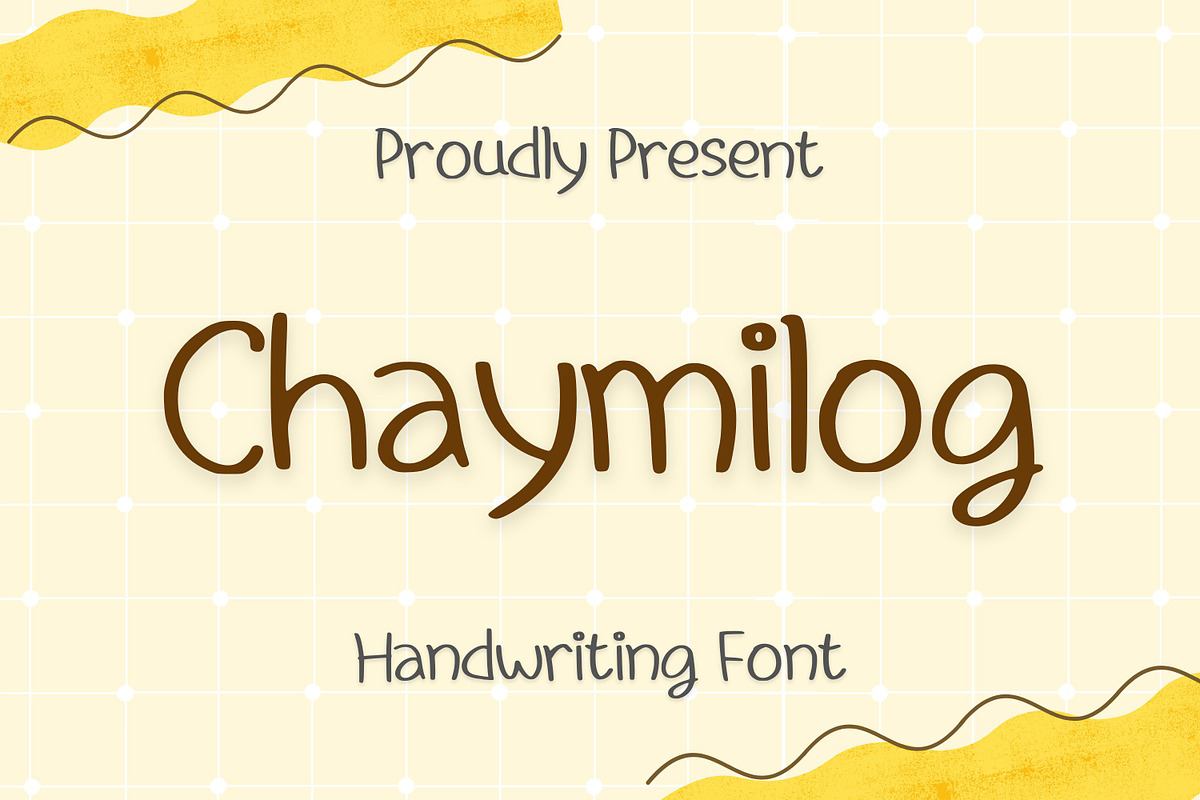
Please note that you must purchase this font for commercial use. You can download Chaymilog Handwriting Font for free, strictly for personal testing purposes only. Chaymilog is a stylish and elegant handwritten script font that features smooth, flowing strokes and natural curves. With its artistic flair and personal touch, Chaymilog Handwriting Font Free Download is perfect for logos, wedding invitations, greeting cards, branding, quotes, and any design that requires a personal, handwritten aesthetic.
The font exudes charm and sophistication, ideal for projects that need a friendly yet refined touch. Chaymilog includes uppercase and lowercase letters, numerals, punctuation, and multilingual support, providing versatility for a variety of creative uses.
Whether you’re working on a delicate brand identity or crafting heartfelt designs, Chaymilog adds elegance and warmth to your typography.